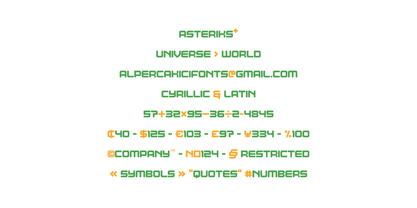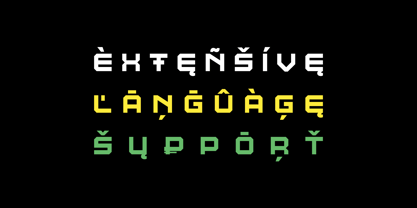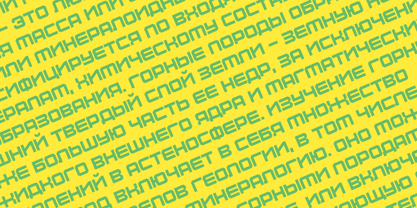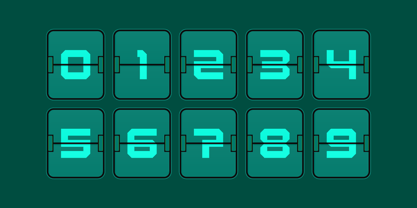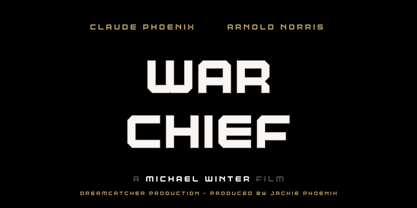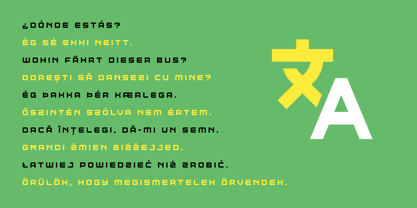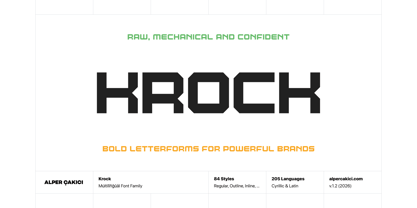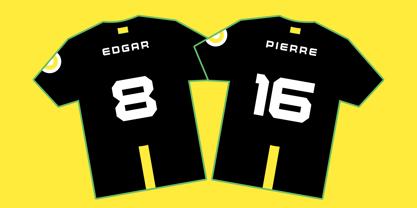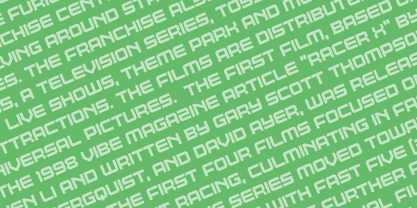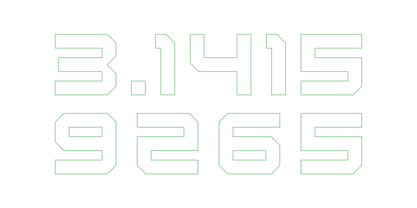
Krock
The Krock Font Family was designed by Alper Çakıcı and published by AlperCakici. Krock contains 1 styles. More about this family
Krock - A Display Font : Font is a carefully crafted display font. It has Extended Latin and Cyrillic characters. It created for poster, web, brand and social media designs.
It supports 91 Languages: Belarusian, Russian, Afrikaans, Albanian, Asu, Basque, Bemba, Bena, Breton, Catalan, Chiga, Colognian, Cornish, Croatian, Czech, Danish, Dutch, Embu, English, Esperanto, Estonian, Faroese, Filipino, Finnish, French, Friulian, Galician, German, Gusii, Hungarian, Indonesian, Irish, Italian, Kabuverdianu, Kalenjin, Kamba, Kikuyu, Kinyarwanda, Latvian, Lithuanian, Lower Sorbian, Luo, Luxembourgish, Luyia, Machame, Makhuwa-Meetto, Makonde, Malagasy, Maltese, Manx, Meru, Morisyen, North Ndebele, Norwegian Bokmål, Norwegian Nynorsk, Nyankole, Oromo, Polish, Portuguese, Quechua, Romanian, Romansh, Rombo, Rundi, Rwa, Samburu, Sango, Sangu, Scottish Gaelic, Sena, Serbian, Shambala, Shona, Slovak, Soga, Somali, Spanish, Swahili, Swedish, Swiss German, Taita, Teso, Turkish, Upper Sorbian, Uzbek (Latin), Volapük, Vunjo, Walser, Welsh, Western Frisian, Zulu